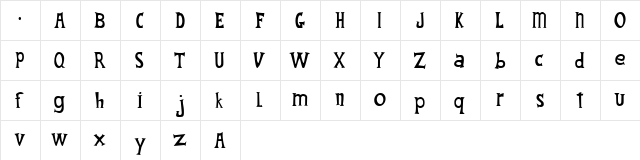
Fantique Four Regular
| Foundry | Digital Empires |
| Designer | Steve Tune |
Design Context for Fantique Four Typeface
Fantique Four has the warm character of retro typography — evoking diners, record sleeves, and the golden age of print advertising.
Ideal for diner signage, record shop branding, 70s/80s-themed projects, and heritage product labels.
Font Pairing: Combine Fantique Four with a simple slab or neutral sans — period-accurate companions reinforce the vintage feel without competing for attention.
Pro Tip: Lean into Fantique Four's period character by pairing it with aged paper textures, muted colour palettes, and vintage illustration styles.